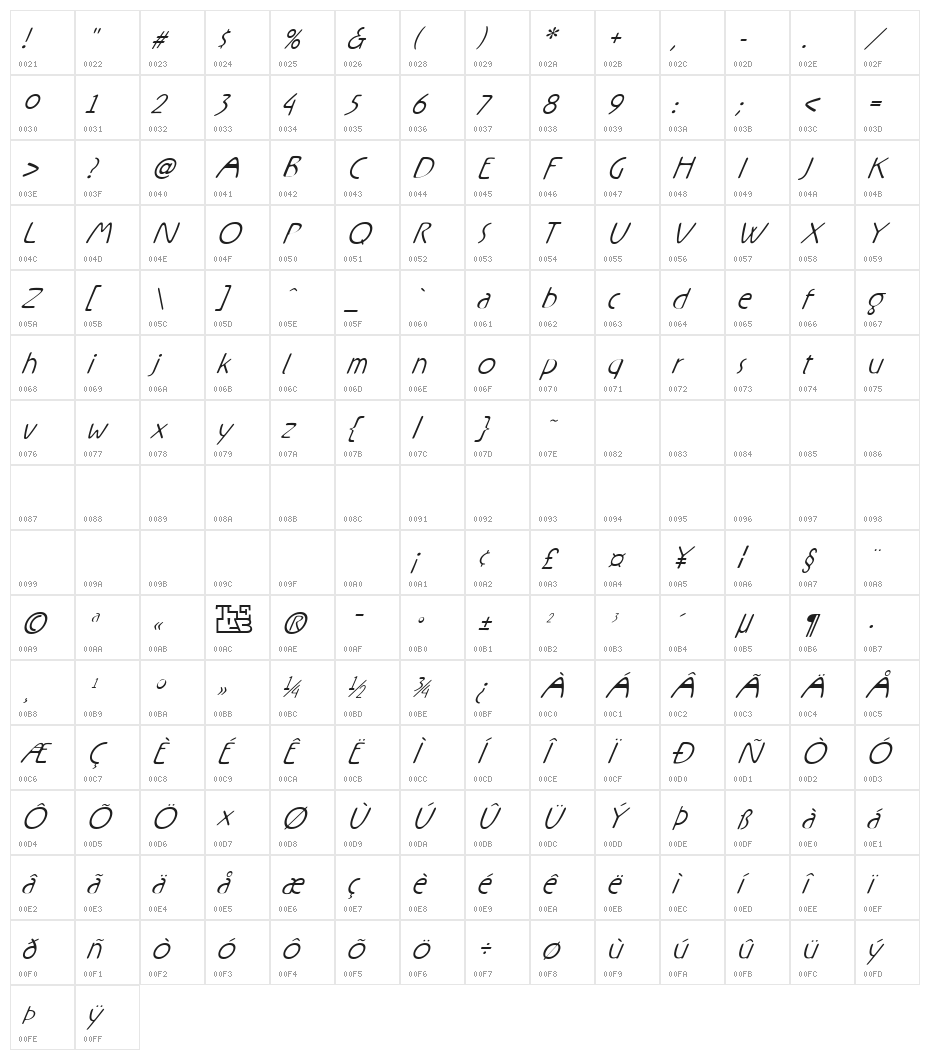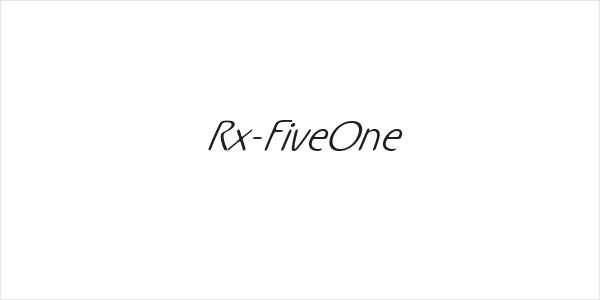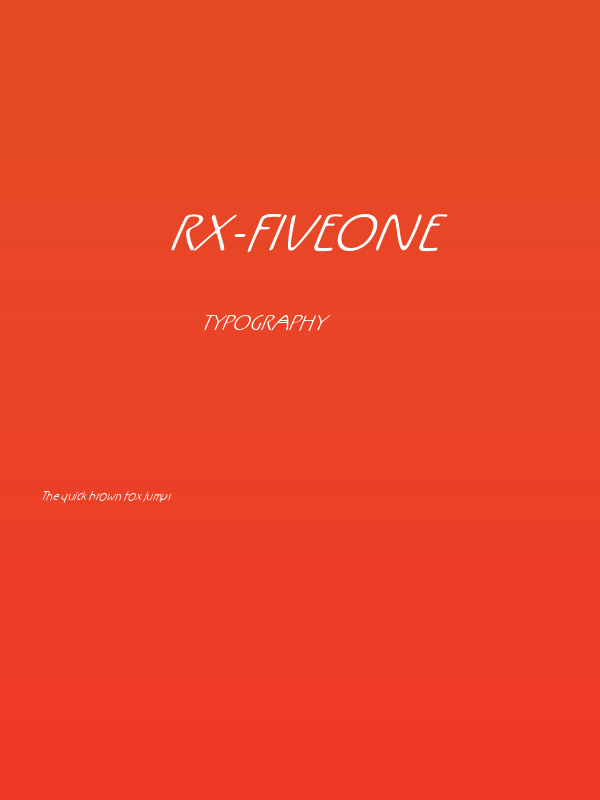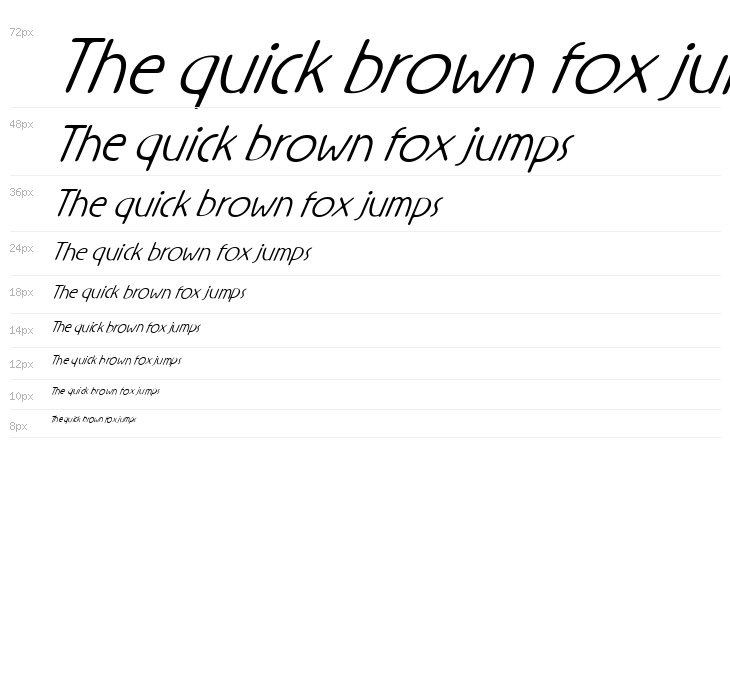
Rx-FiveOne Font
Rx-FiveOne Description
This font features a smooth, flowing script style with a modern twist. The characters are slightly slanted, giving it a dynamic and elegant appearance. The uppercase letters are tall and slender, while the lowercase letters maintain a consistent flow, enhancing readability. The numerals are distinct and align well with the overall style, making them suitable for various applications. Special characters are designed to complement the alphabet, maintaining the font's cohesive look. This font's design is both stylish and functional, making it versatile for different uses.
| Proposed Projects | Ideal for wedding invitations, elegant branding, personal signatures, and stylish logos. |